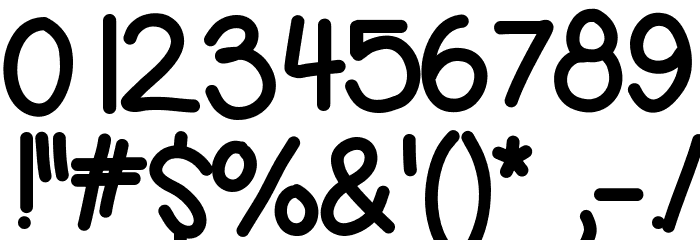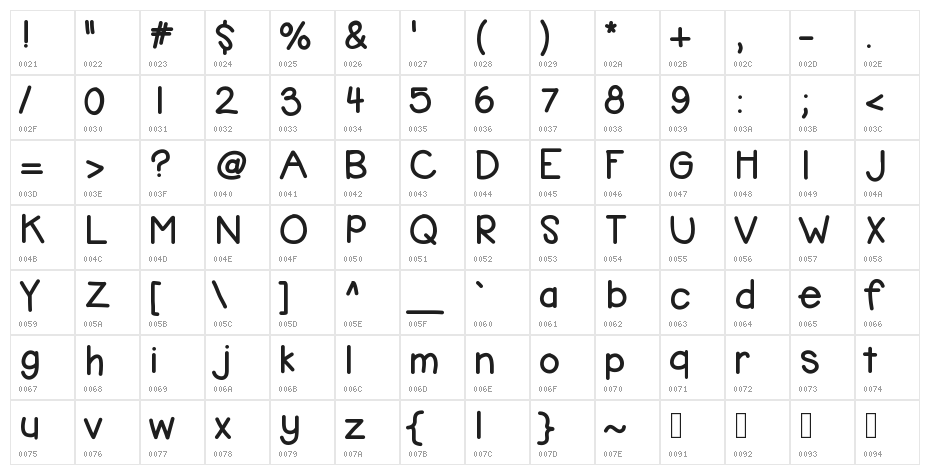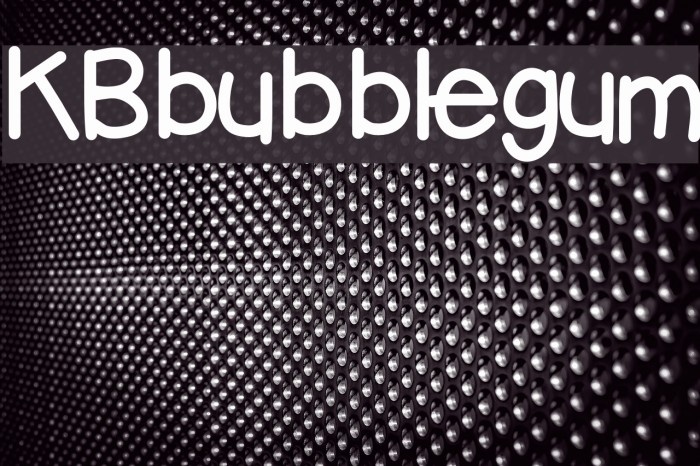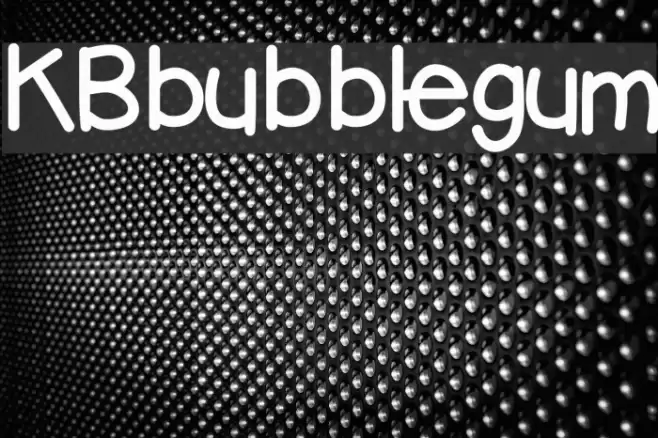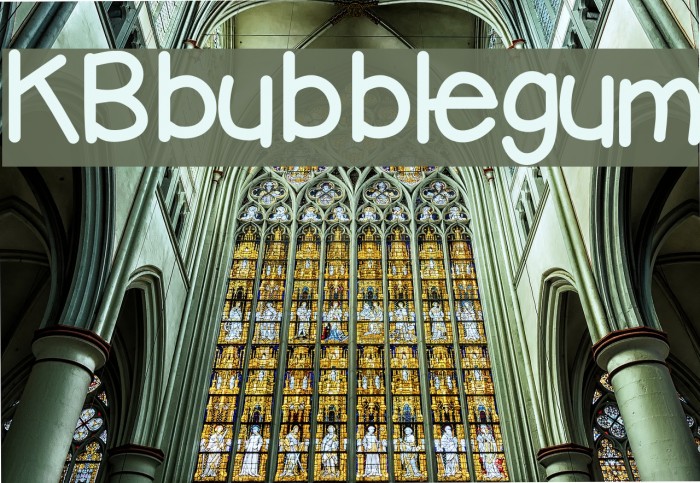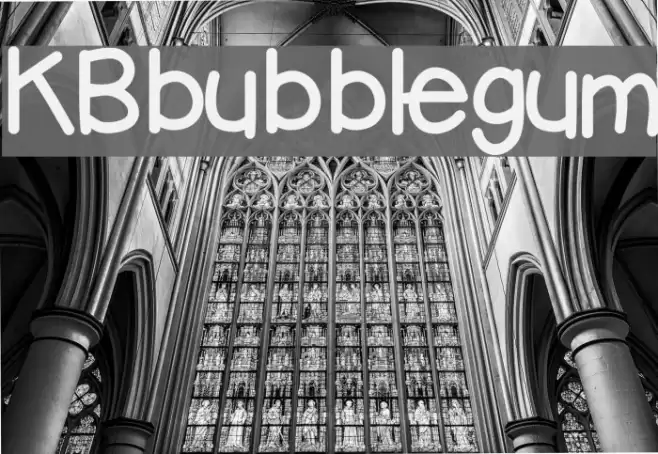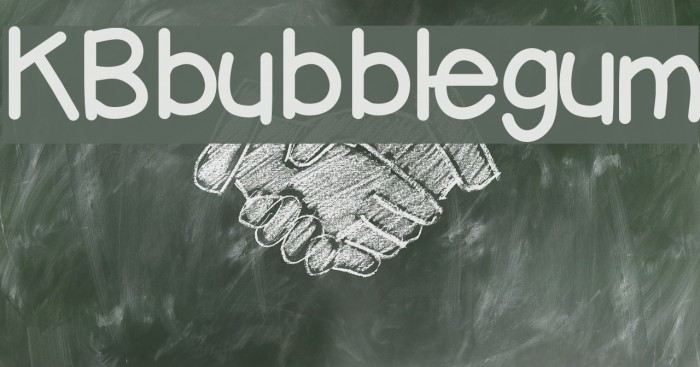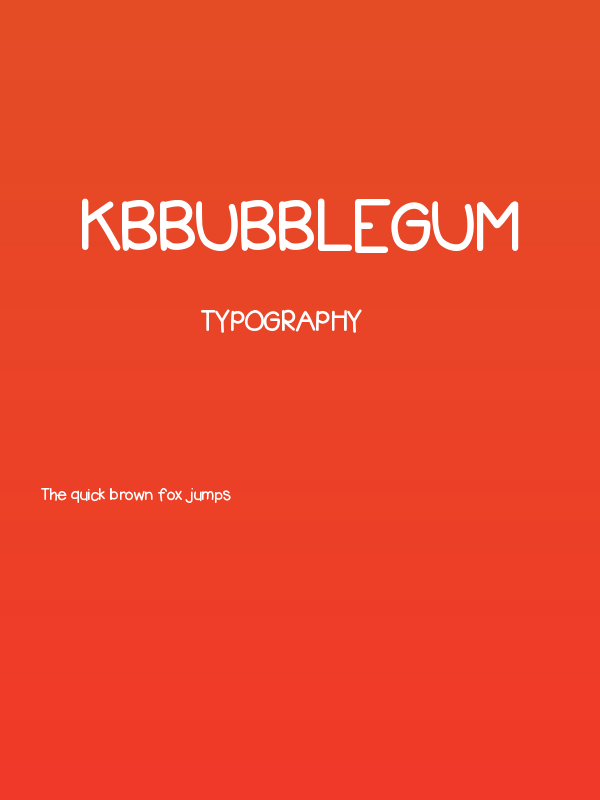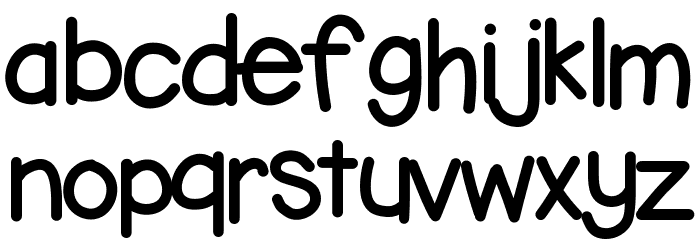
KBbubblegum Font
KBbubblegum Description
This playful and rounded font exudes a whimsical and friendly vibe. The characters are bold and have a uniform thickness, contributing to a bubbly and approachable appearance. The uppercase and lowercase letters maintain a consistent style, with smooth curves and a slightly informal touch. The numbers and special characters follow the same rounded and playful design, making the font suitable for creative and fun applications. Its simplicity and charm make it ideal for projects that require a lighthearted and engaging aesthetic.
| Proposed Projects | Ideal for children's books, playful branding, party invitations, and casual social media graphics. |